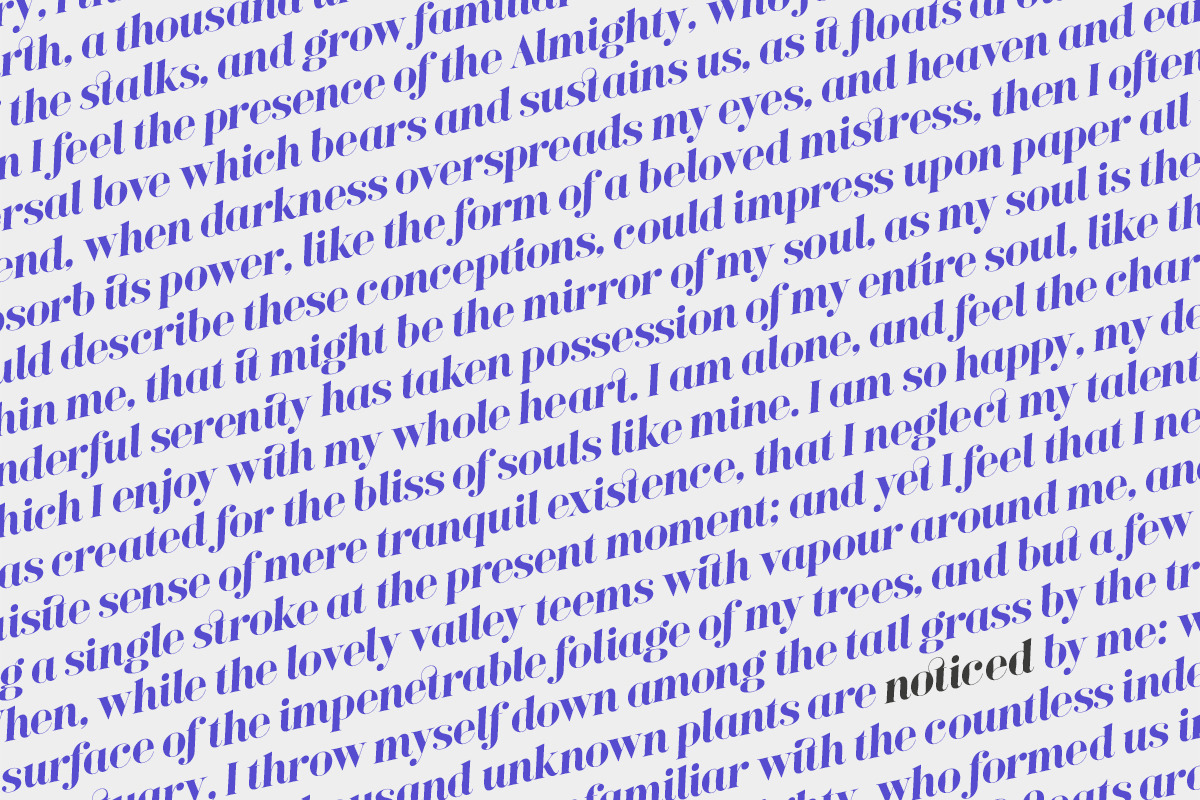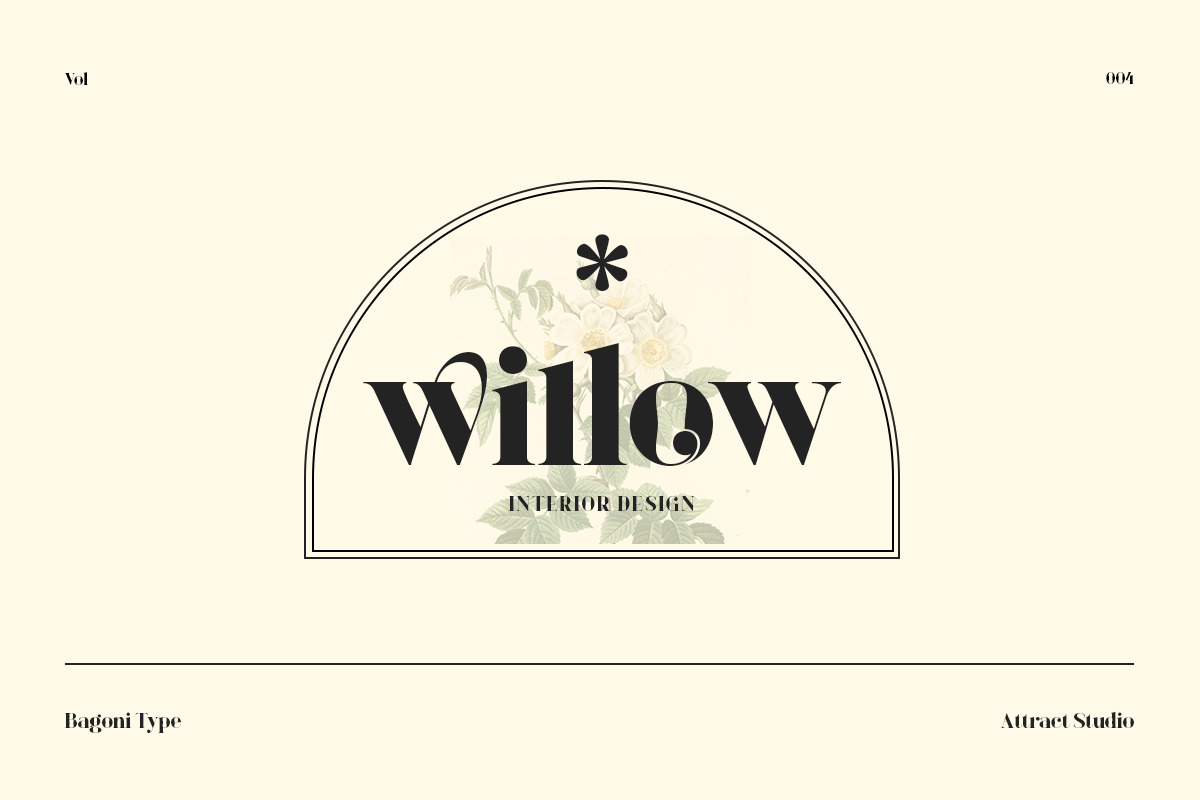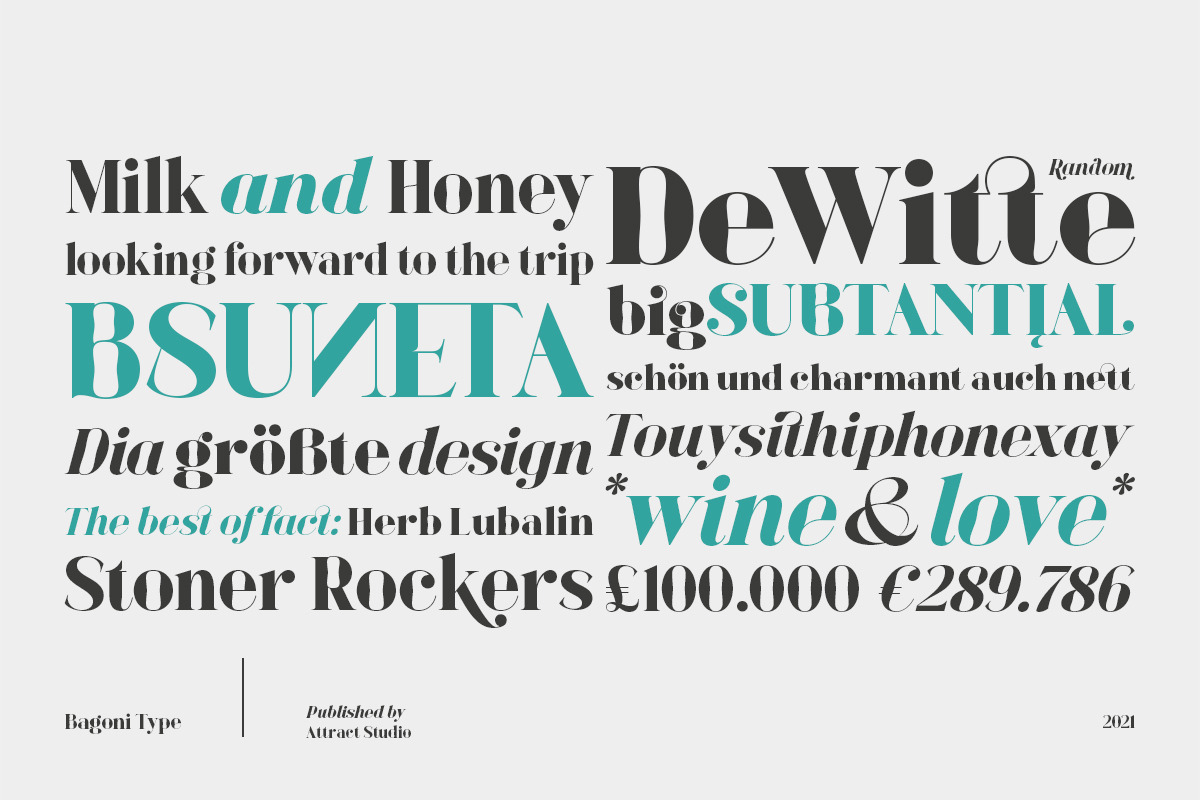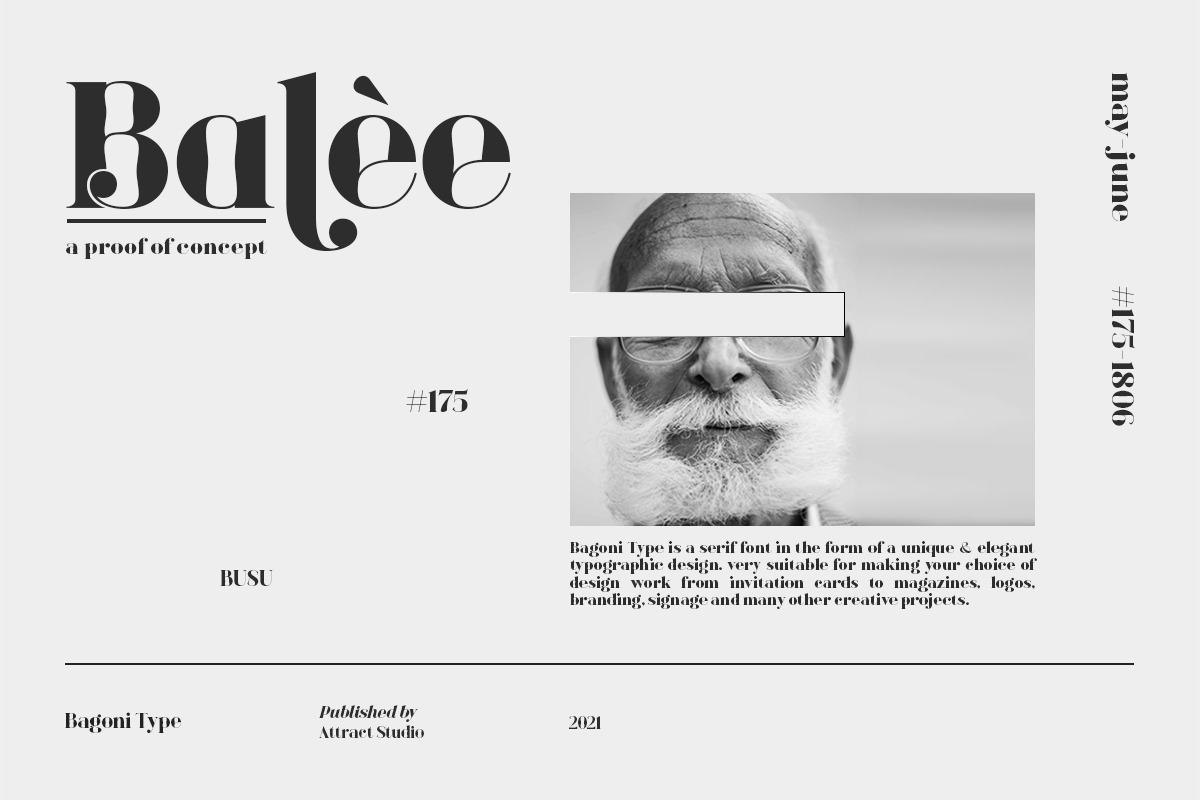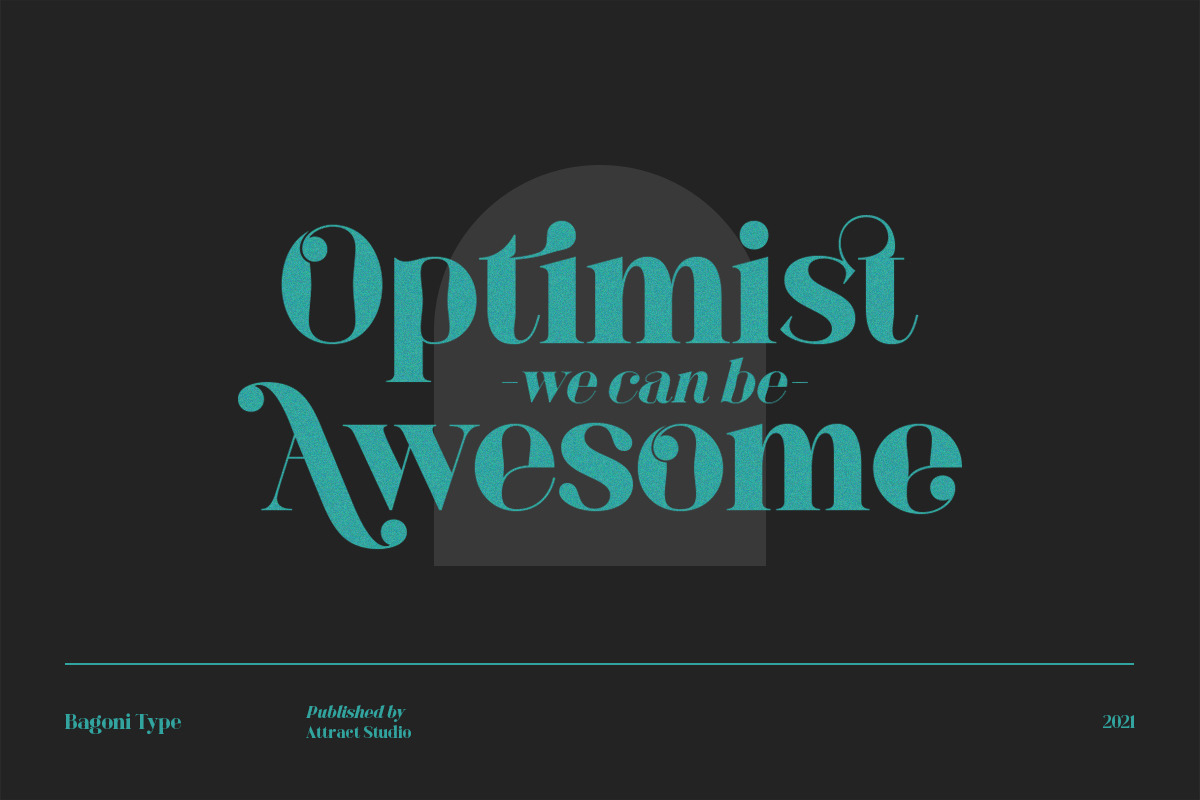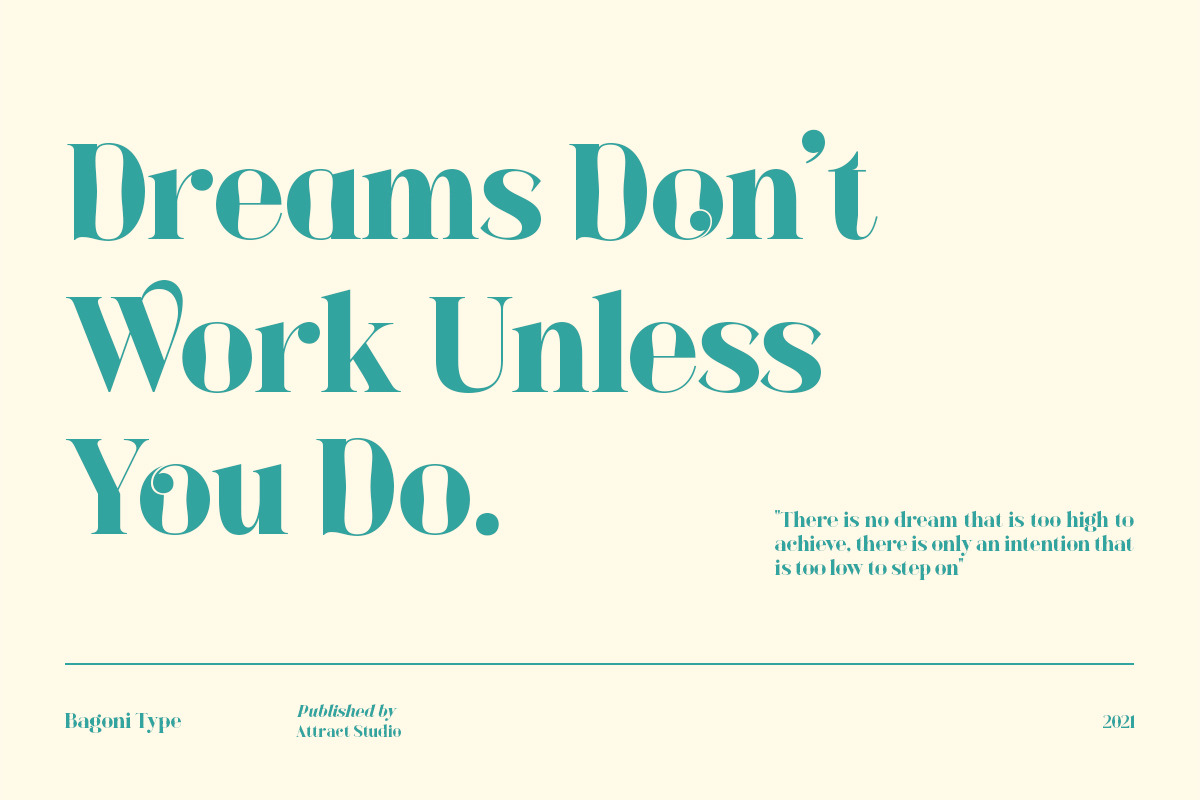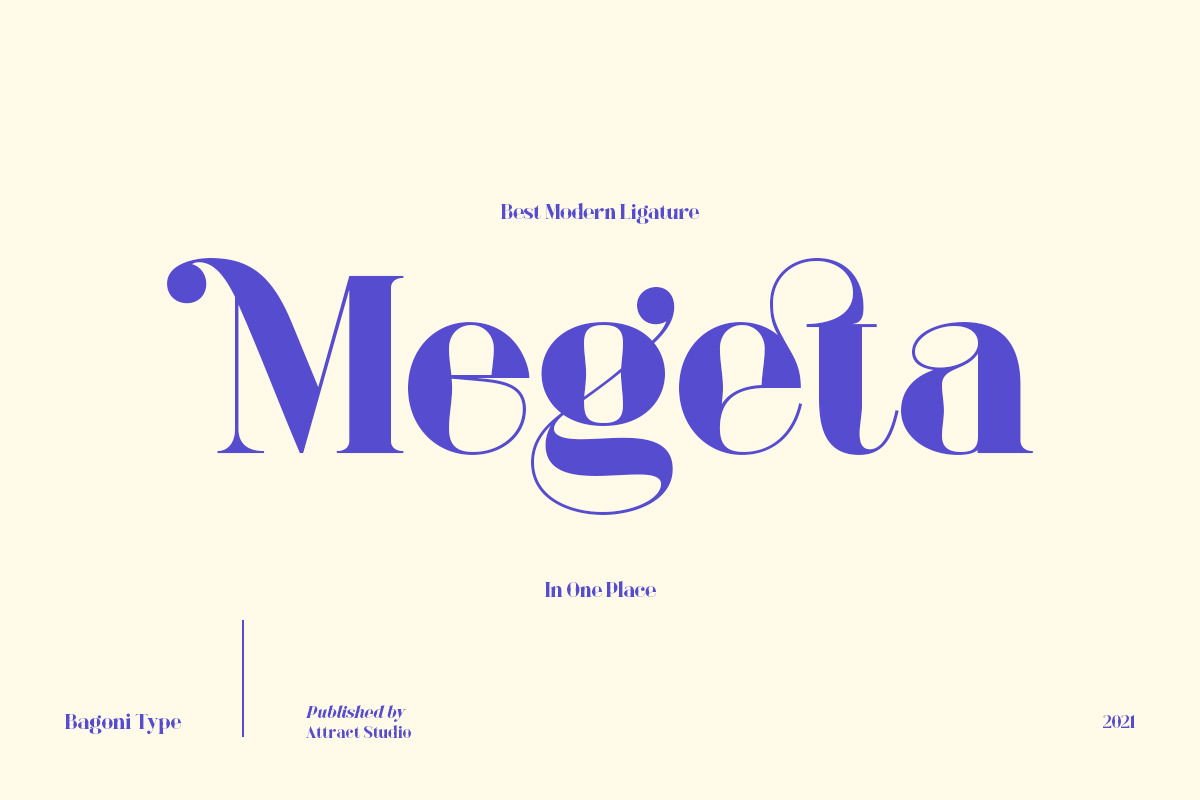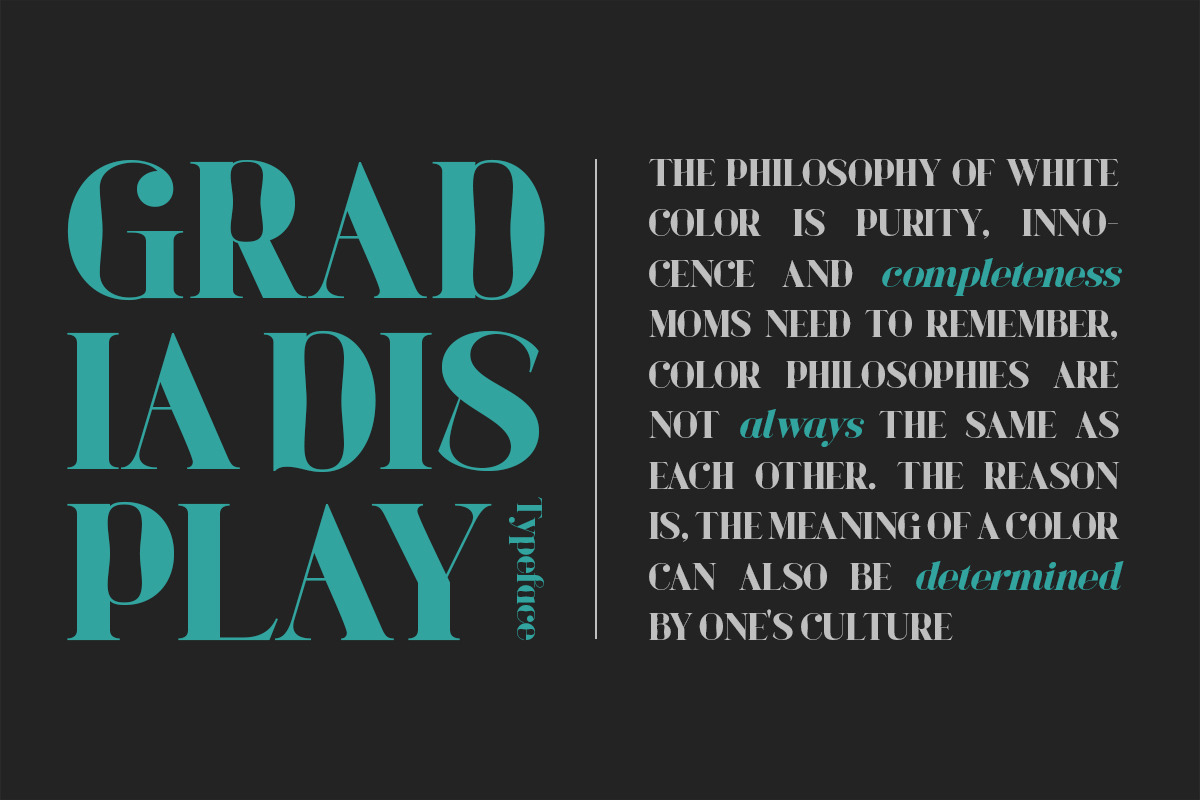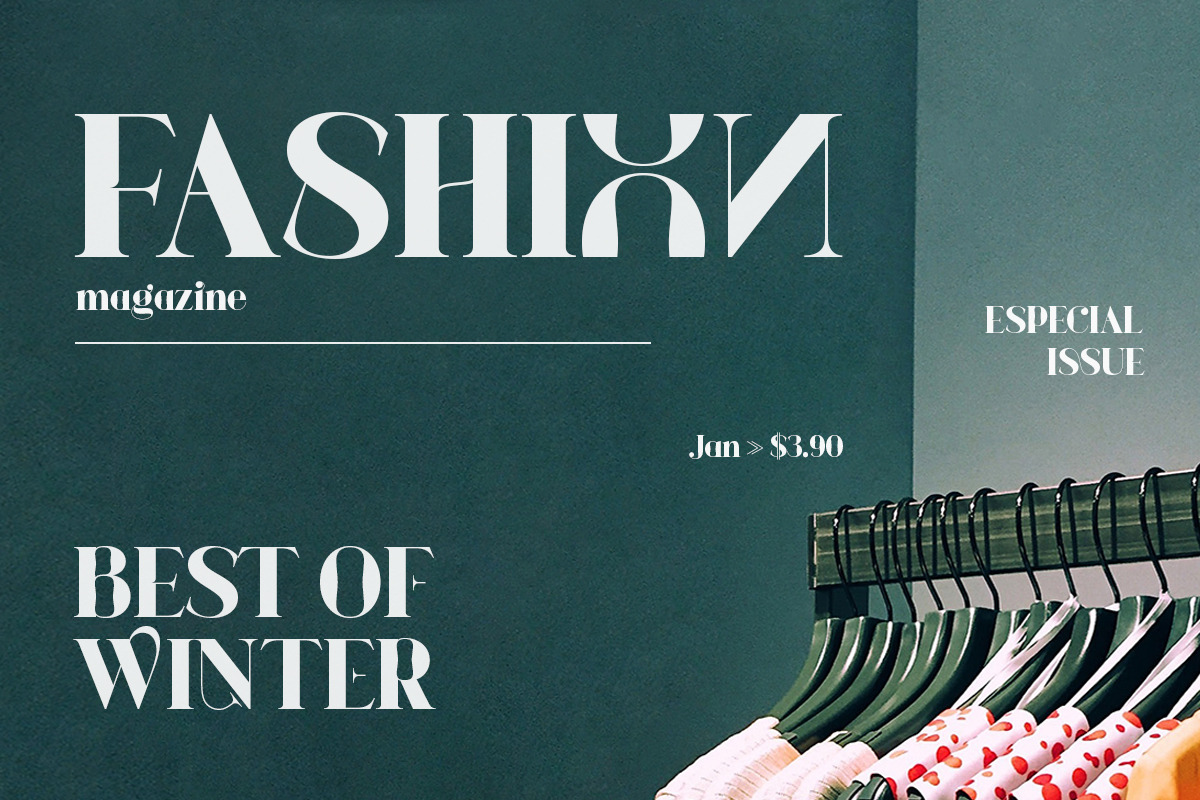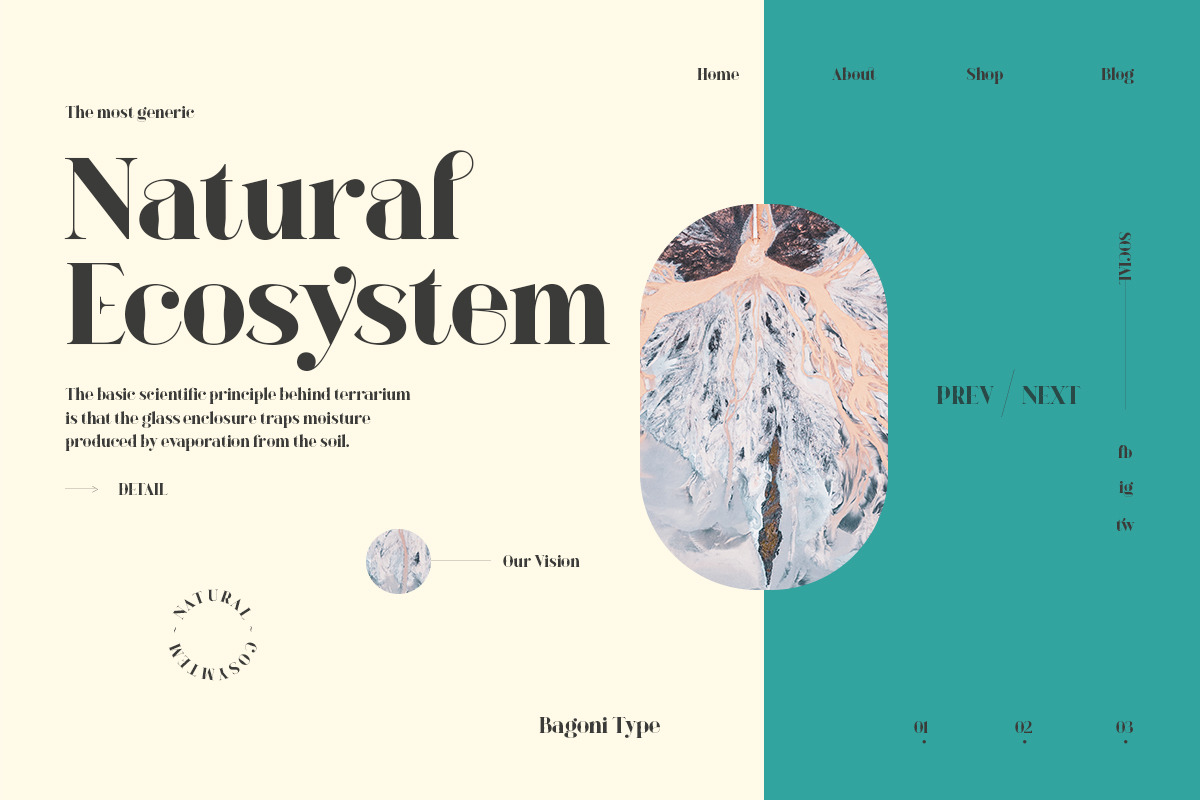
Bagoni Type
Bagoni Type is a very versatile, clean and visually elegant font inspired by the serif typography used in editorial media in the 80s.
Bagoni Type with its high contrast and very simple and easily recognizable shape makes it very easy to read, so it also works with small and long text. Great for magazine pictures, for wedding invitations, for branding, poster design and more. Bagoni Type comes in bold and italics that is complemented by various features of open type.